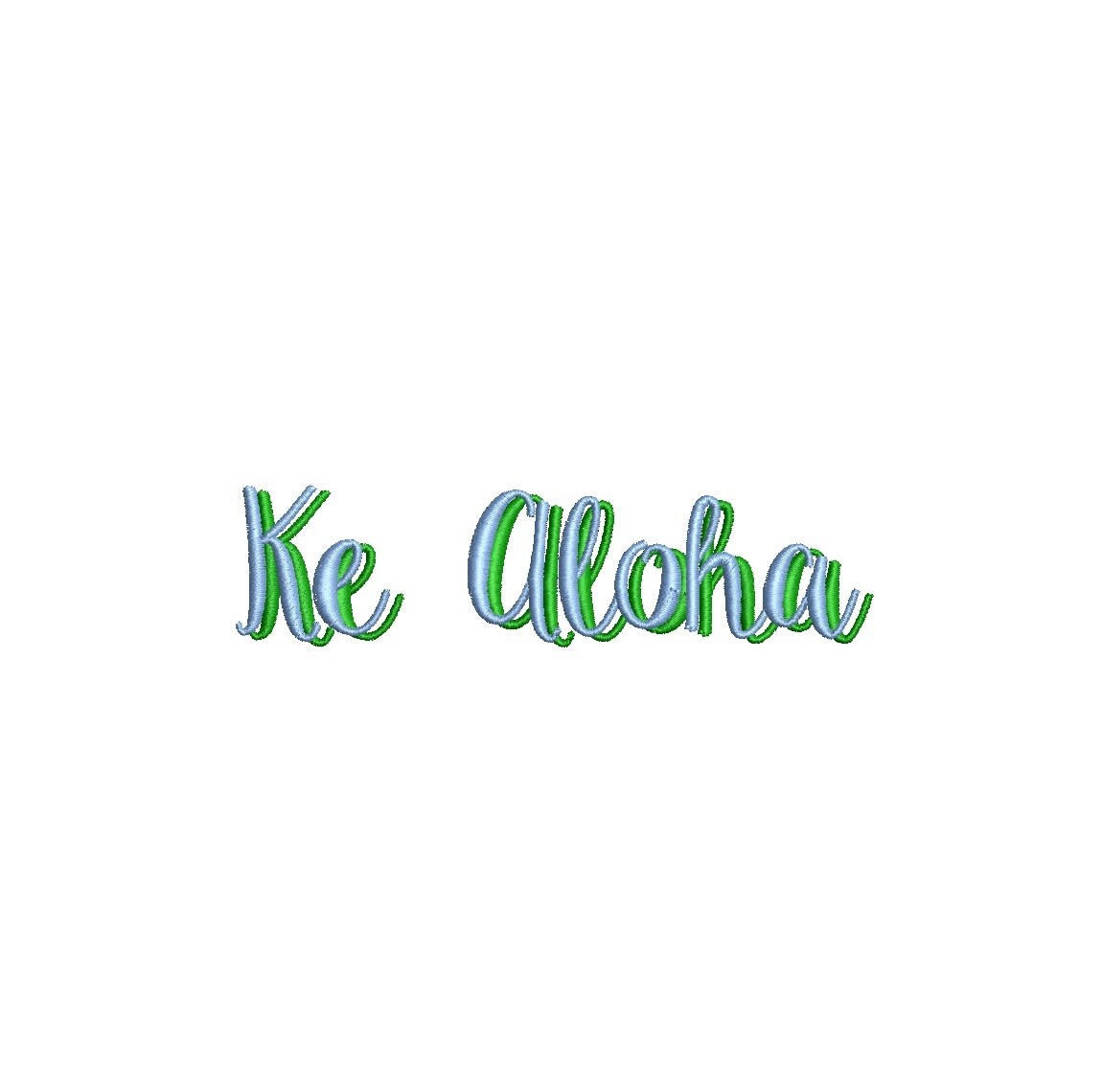
Elevate your designs with the enchanting Ke Aloha Shadow ESA font. Fully compatible with Wilcom Studio e4.5.6 and Hatch 3 versions and up, this font infuses your projects with a touch of Hawaiian-inspired elegance and warmth. The font's intricate shadows and graceful lines create a mesmerizing visual impact that sets your designs apart. Streamline your creative process and achieve flawless results by utilizing this font with industry-leading software. Upgrade your projects with the compatibility of Ke Aloha Shadow ESA font and craft visuals that radiate the spirit of aloha. Embrace creativity and cultural charm for your design journey today!